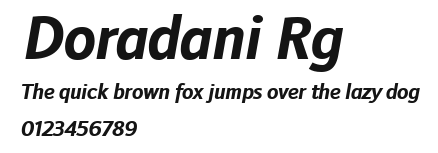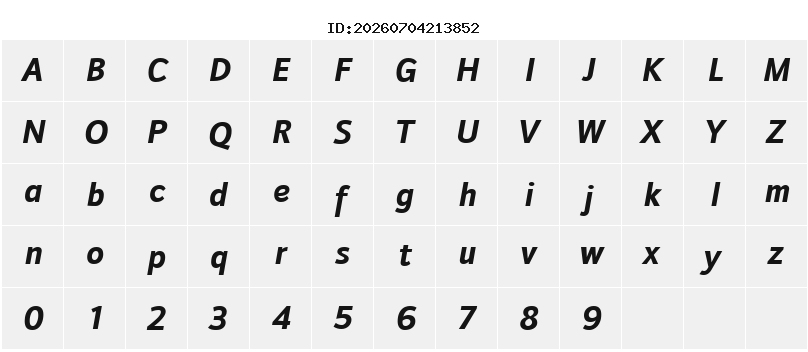
• Font Name: Doradani Rg
• Font ID: RayLarabie: Doradani Rg Bold Italic: 2006
• Full Font Name: Doradani Rg Bold Italic
• Designer: Ray Larabie
• Manufacturer: Ray Larabie
About Doradani Rg.ttf
Doradani Rg.ttf is a modern, elegant sans-serif font designed for ultimate readability and visual harmony. Perfect for branding, headlines, web design, and print materials.